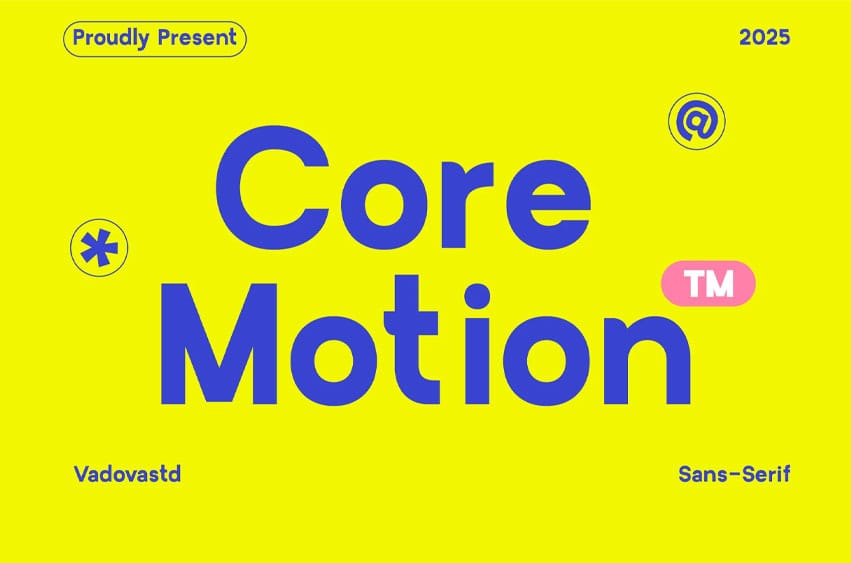
Core Motion Font is a bold and vibrant sans-serif typeface designed for high-energy visual communication. With playful letterforms and striking geometric balance, it’s perfect for digital campaigns, creative branding, event posters, and modern packaging. Core Motion thrives in colorful, movement-driven layouts and is ideal for projects that embrace fun, boldness, and expressive personality. Whether for apps, advertising, or artistic concepts, this typeface brings ideas to life with style and energy.